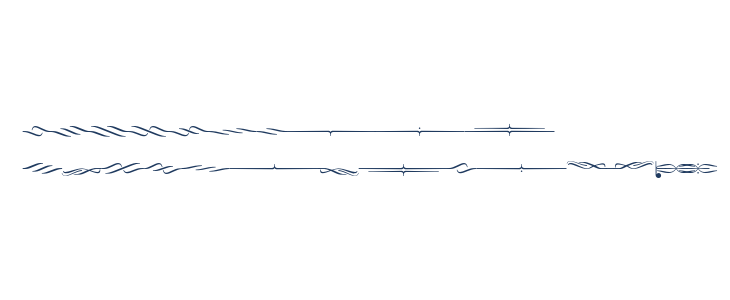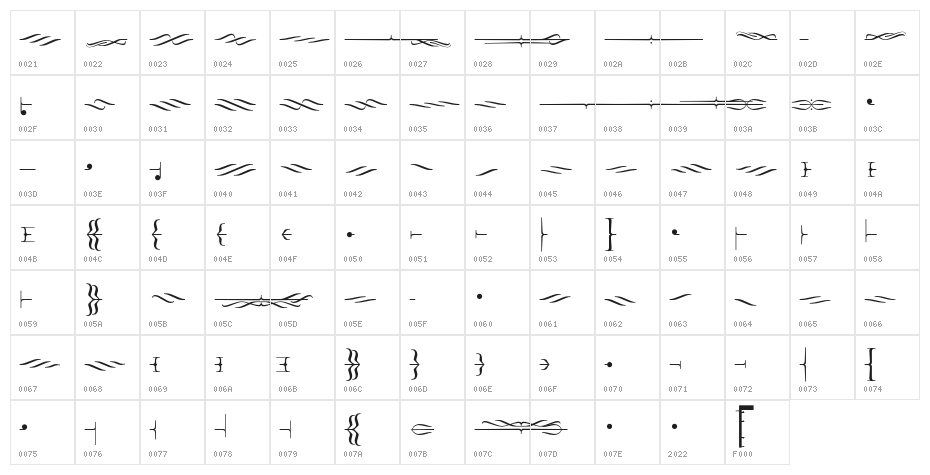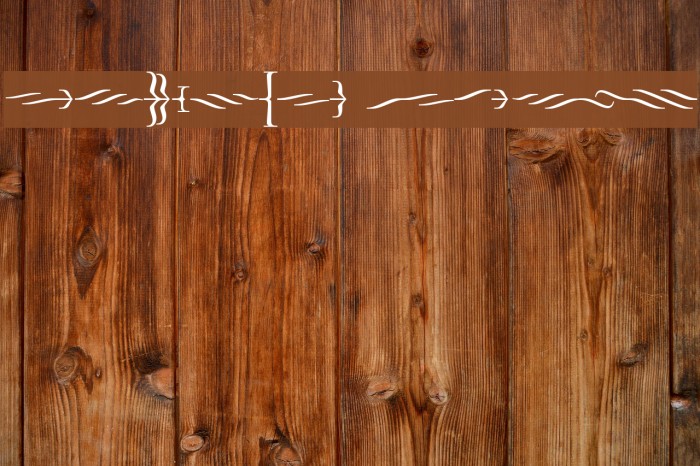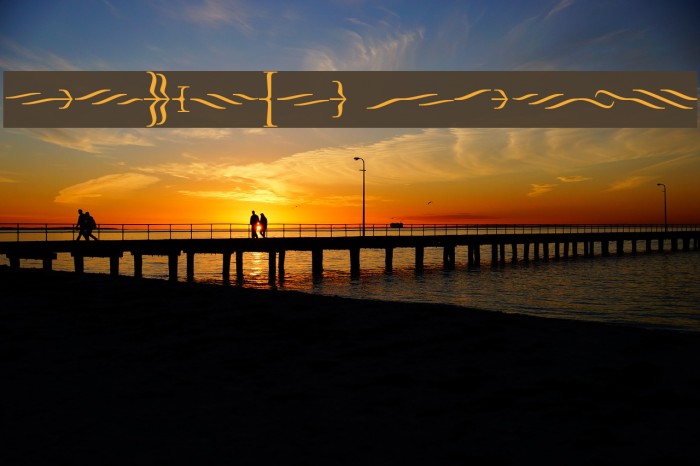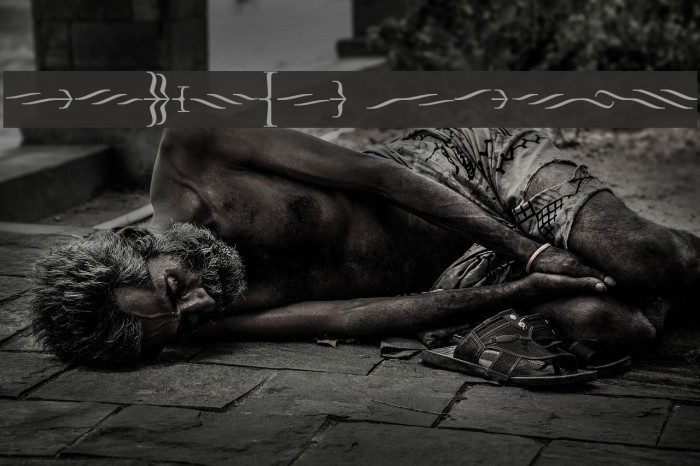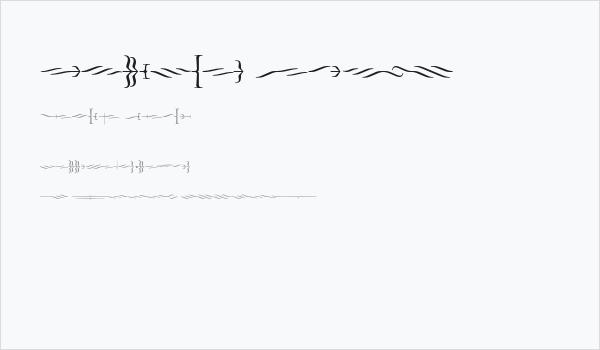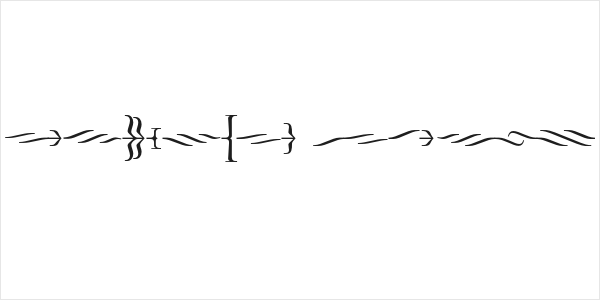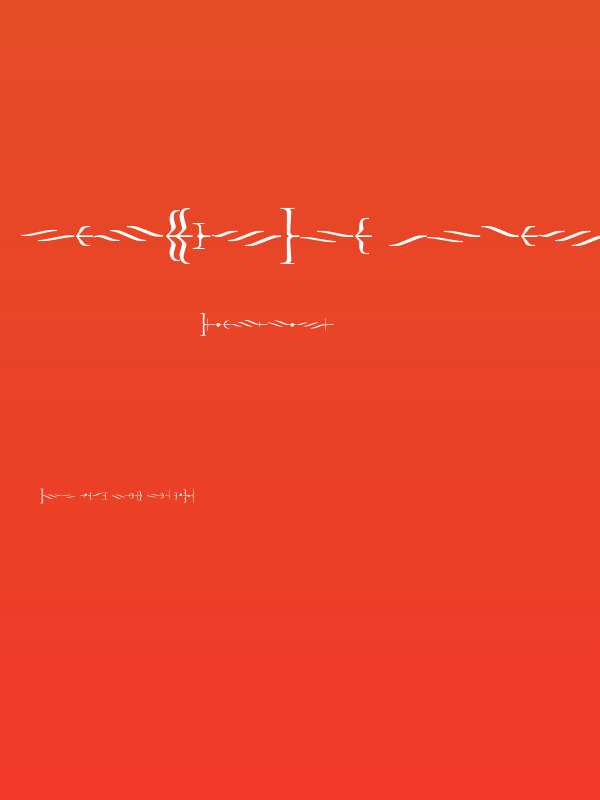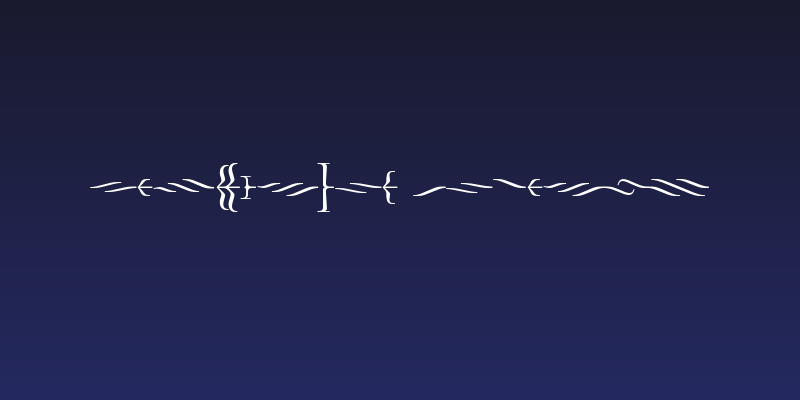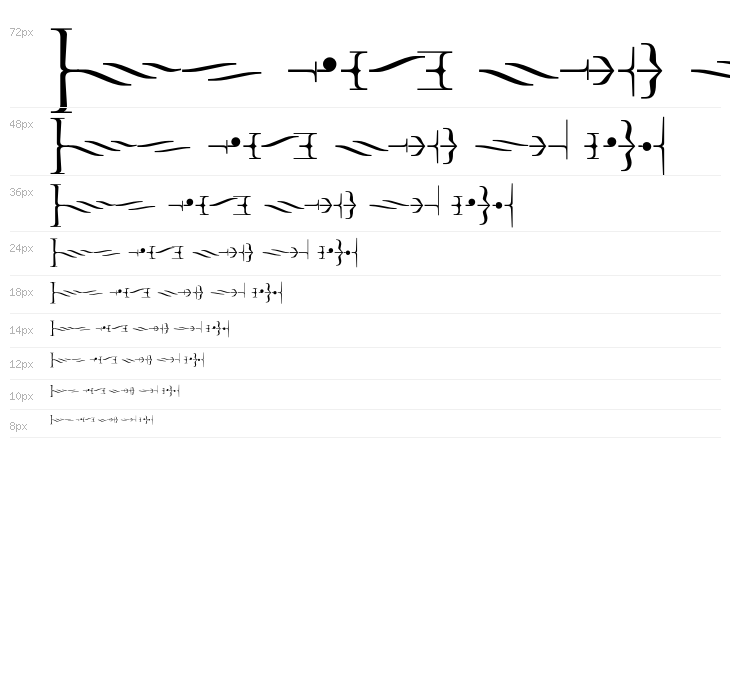
Foglihten DecoH02 Font
Foglihten DecoH02 Description
This design features a highly decorative and abstract style, characterized by intricate, swirling lines and geometric shapes. The elements are arranged in a way that suggests a sense of rhythm and movement, with a balance between thick and thin strokes. The overall appearance is artistic and ornamental, making it suitable for creative and expressive projects. The design does not follow traditional letterforms, instead offering a unique visual language that can be used to create borders, dividers, or artistic compositions.
| Use Case | Artistic compositions, Decorative elements |
| Proposed Projects | Ideal for artistic compositions, decorative borders, and creative design elements. |